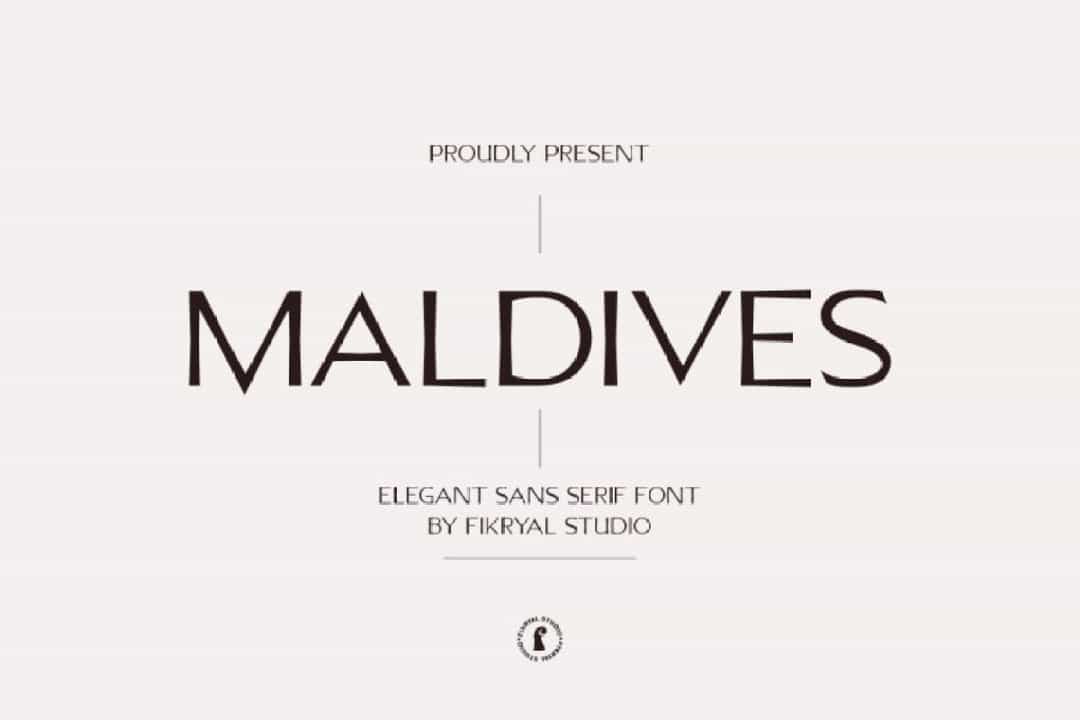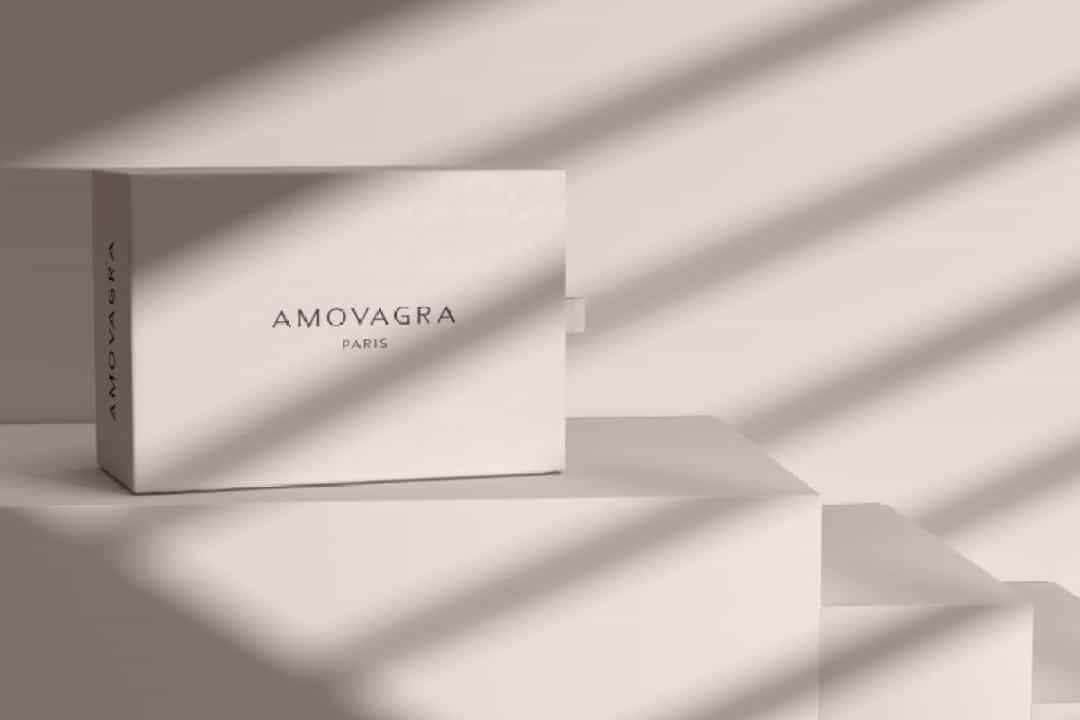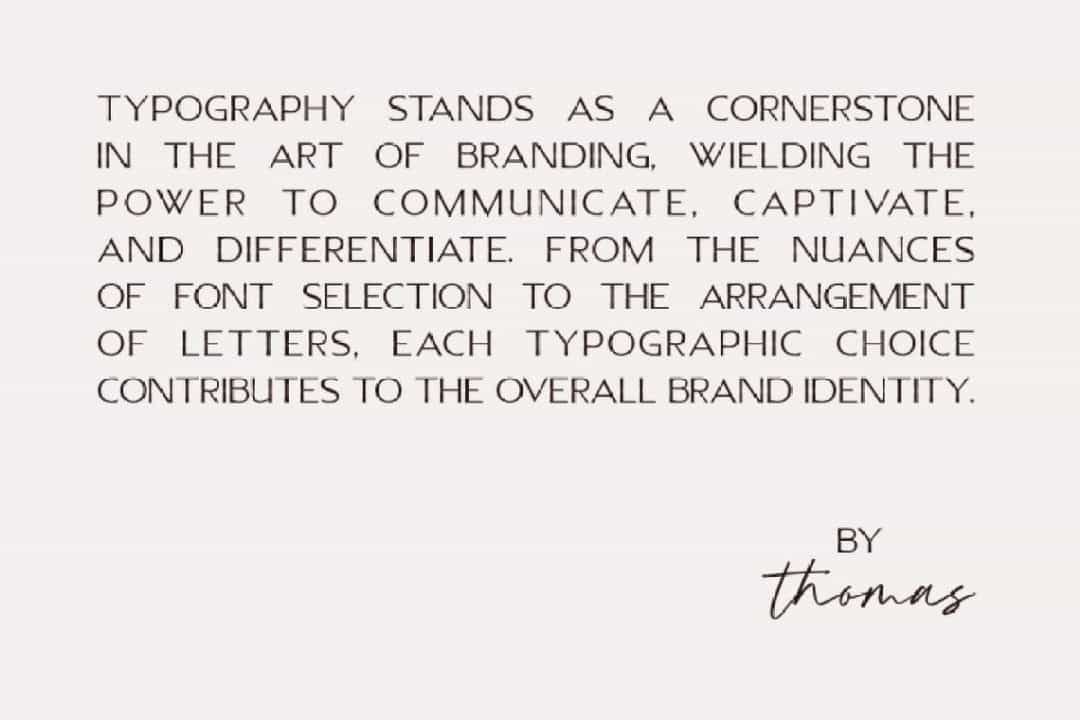
Maldives is the epitome of Luxury and Elegance in typography. Boasting captivating and confident grace, this sans serif font exudes beauty and grace throughout all letters crafted to exude strength while remaining unpretentious in each presentation. Maldives combines simplicity and elegance seamlessly creating stunning visual harmony.